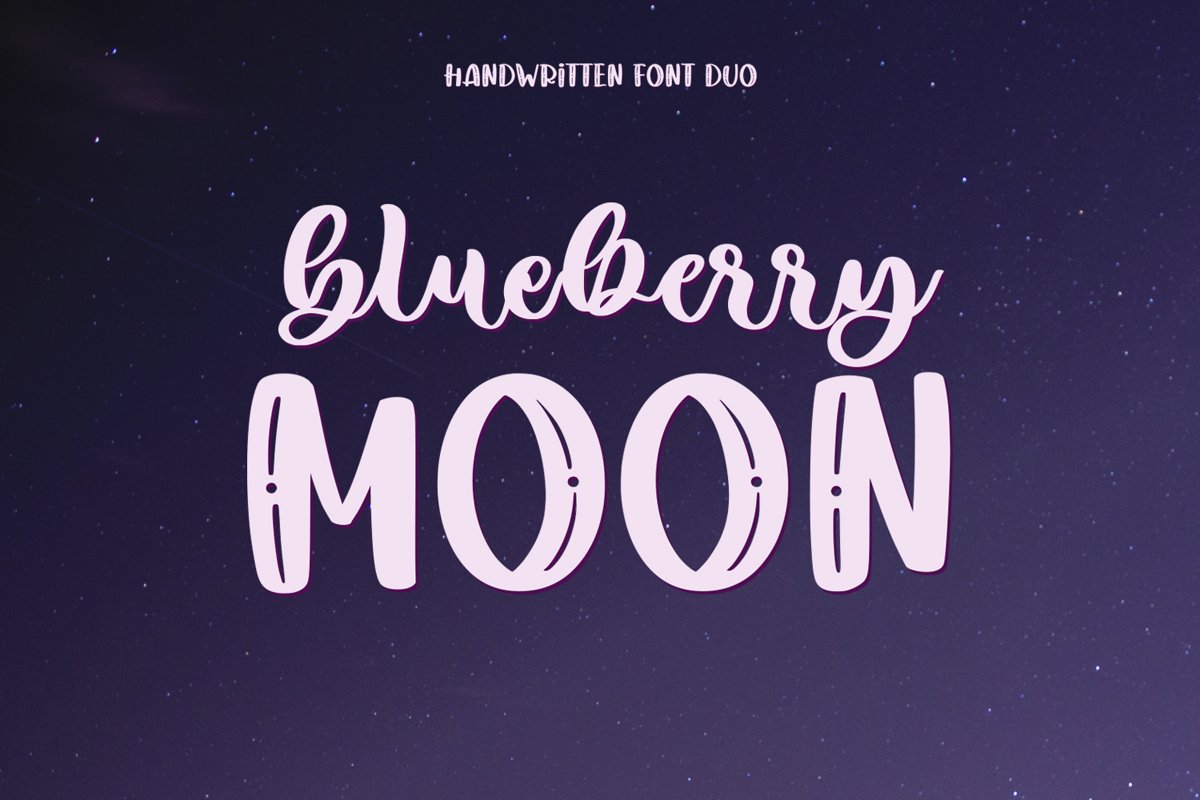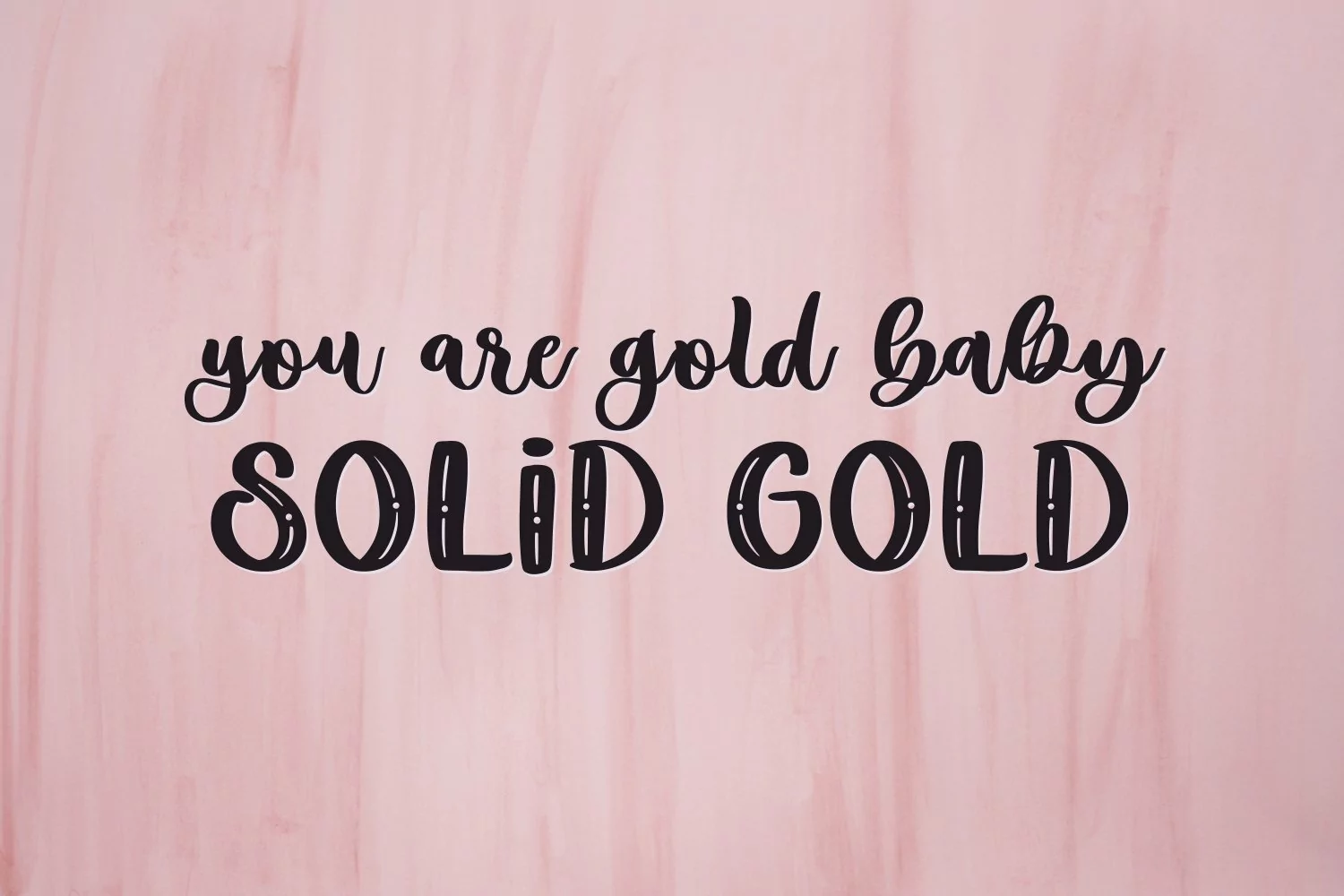
Blueberry Moon Font Duo - it's a cute font duo
Blueberry Moon .otf - all uppercase sans serif font, numbers, punctuation
Blueberry Moon Script .otf - standart and alternate uppercase, lowercase, numbers, punctuation